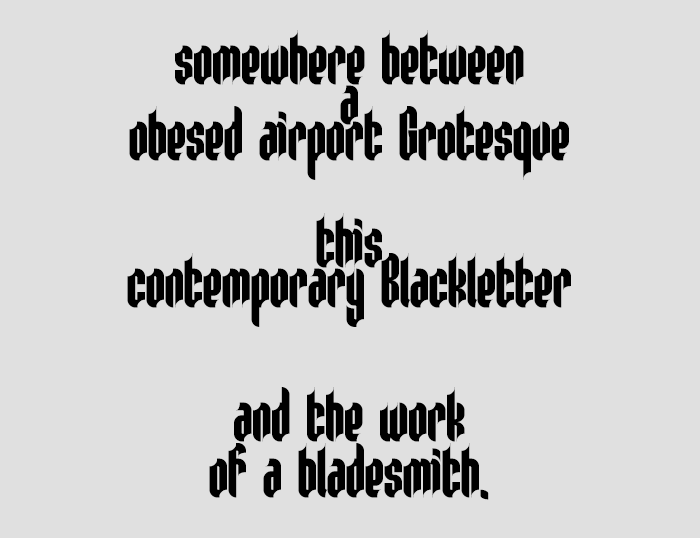
• BLAYDES - A modern geometric Blackletter style
Playing around with some more experimental geometric forms for a Blackletter-ish font. It doesn't really involve or honors any actual calligraphic traditions. The font is actually just a simple geometric sans that was modified to sort of faking the looks and style of a Blackletter.
I tried replicating various elements that are traditionally seen in a Blackletter, such as: angular-styled segments such as strokes, transitions, tapered endings or serifs with a different approach. I used a set of circular shapes and variations to these in order to achieve a similar effect.
The end result sits somewhere between this obesed airport Grotesk, a contemporary Blackletter and the work of a bladesmith.
It has some very sharp and pointy tips, and for some reason this often very 'sword-like' forms.